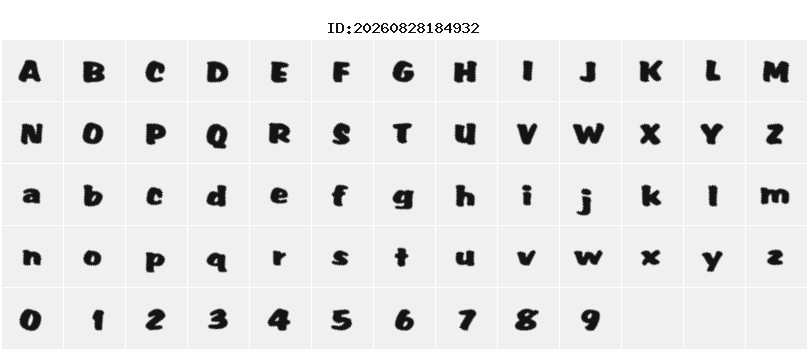
About Tiffy.ttf
Tiffy.ttf is a modern, elegant sans-serif font designed for ultimate readability and visual harmony. Perfect for branding, headlines, web design, and print materials.